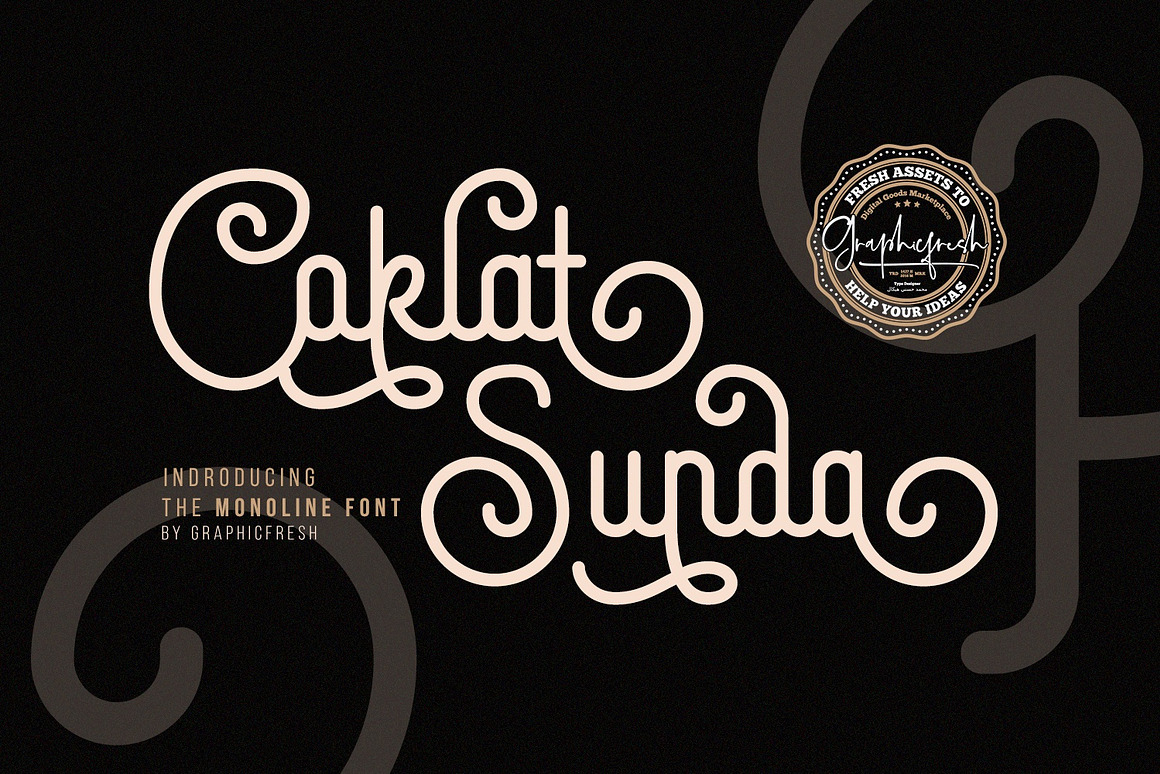
Coklat Sunda - The Monoline Font
Coklat Sunda The Monoline Font is perfect for artisanal coffee branding, handcrafted product packaging, casual restaurant signage, creative studio identities, bohemian lifestyle campaigns, organic food labels, craft workshop materials, indie brand designs, and authentic handmade product marketing.
What makes Coklat Sunda The Monoline Font exciting is its charming handcrafted character that beautifully captures the warmth and authenticity of artisanal culture through its distinctive monoline construction. The font features consistent stroke weights that create a hand-drawn aesthetic, evoking the personal touch and genuine care found in handcrafted products. Its organic flow and authentic appearance make it perfect for brands that want to communicate craftsmanship, authenticity, and the personal connection between maker and consumer while maintaining excellent readability and approachable charm.
Coklat Sunda The Monoline Font family includes various handcrafted styles such as Regular, Bold, and possibly script variations, often featuring artisanal alternates and craft-inspired decorative elements. The family may include handmade symbols, organic ornaments, and authentic ligatures that enhance the font's artisanal aesthetic, providing designers with comprehensive options for creating genuine brand identities that celebrate handcrafted quality and traditional craftsmanship.